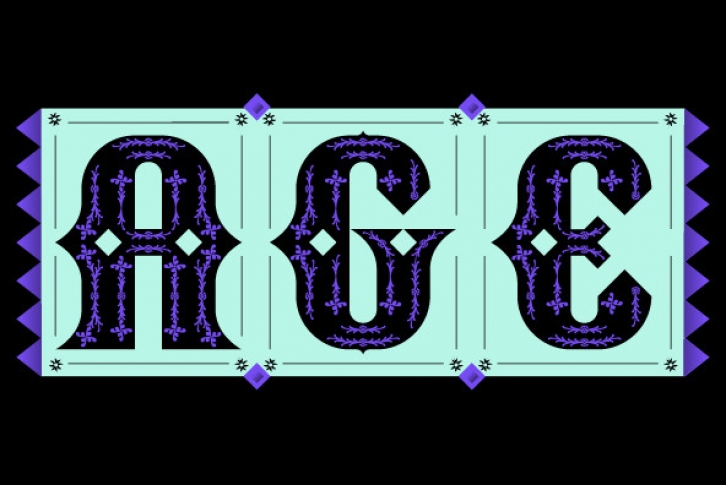
NT Guru is a multiple layered typeface especially designed for display use. To create beautiful typographic designs the possibilities are endless by using layers and colors. A beautiful set of arrows and multiple language support makes Guru complete for any unique and ornamental design.
Nt Guru is a set of 5 fonts designed by Novo Typo (typo)graphic designers from Amsterdam - The Netherlands.